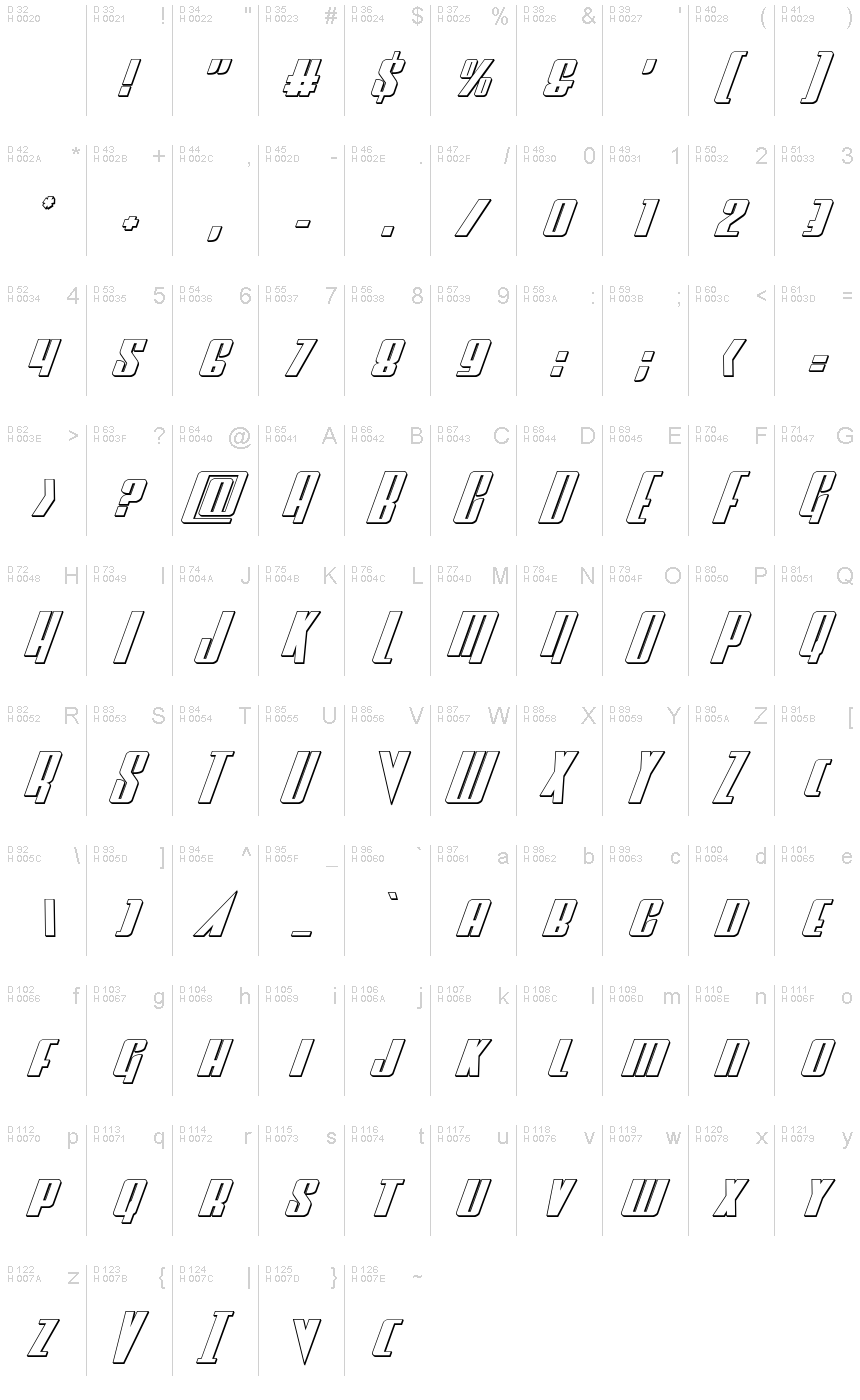
Vindicator Outline Italic by Iconian Fonts is a free futuristic outline display font with sharply slanted, tightly packed capitals. Deep angled notches, squared curves, and changing stroke widths give the lettering the speed and aggression of a racing graphic.
Motorsport and high-tech themes are its clearest territory. It suits racing posters, esports branding, game title cards, and sports merchandise because the forward lean feels fast even at rest. Designers targeting arcade fans, racing audiences, or action-game players will find its angular silhouette immediately familiar.